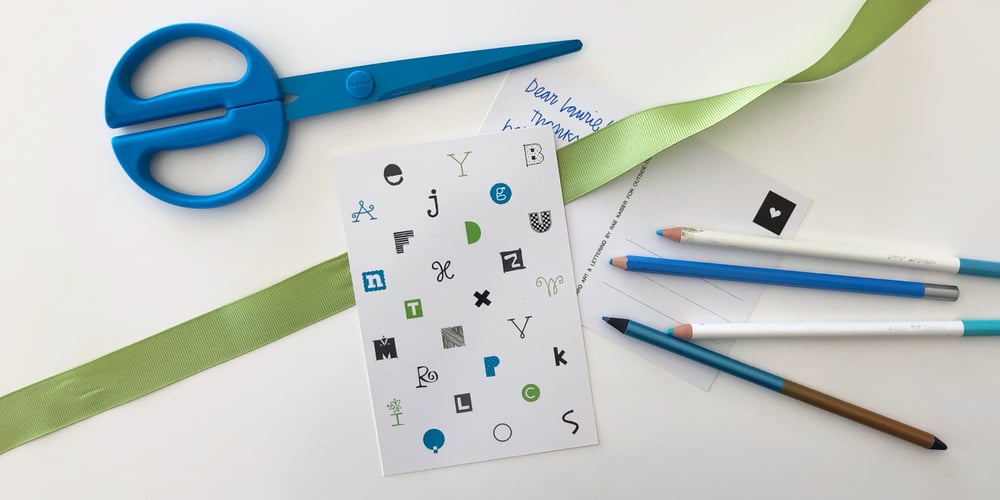
Hodgepodge Font Family was designed by Rae Kaiser and published by Outside the Line. Hodgepodge contains 1 styles and family package options. Hodgepodge is a confused mixture of letters that somehow work together. While I know this has been done before I create fonts that I need. And I occasionally have found a need for this. And it was not there, so now it is. There is a mixture of light and dark, bold and regular, caps and lower case but not where you would expect them to be. Since this is a headline font you can set the headline and then easily go back and change a letter here or there to get the best-looking combination. Hodgepodge was in the 2011 Typodarium Page-A-Day Calendar on 7-17-2011.